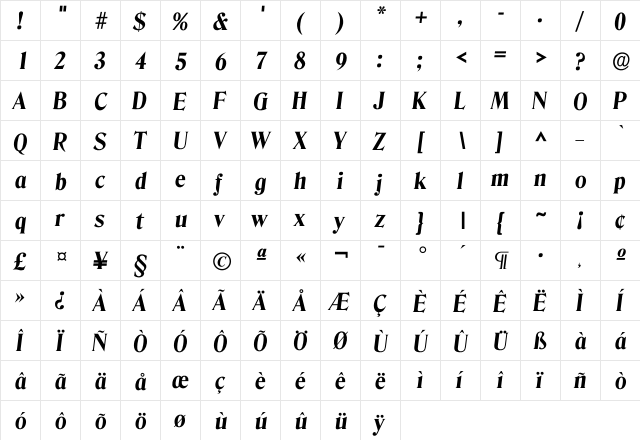
Idenver Bold
Design Context for Idenver Typeface
Idenver offers clean, dependable letterforms without strong stylistic allegiance, making it a practical choice for designers who need flexibility. Its bold stroke weight gives it real presence on the page.
Pro Tip: Pair Idenver with a font of contrasting weight or personality to build a more expressive typographic hierarchy.